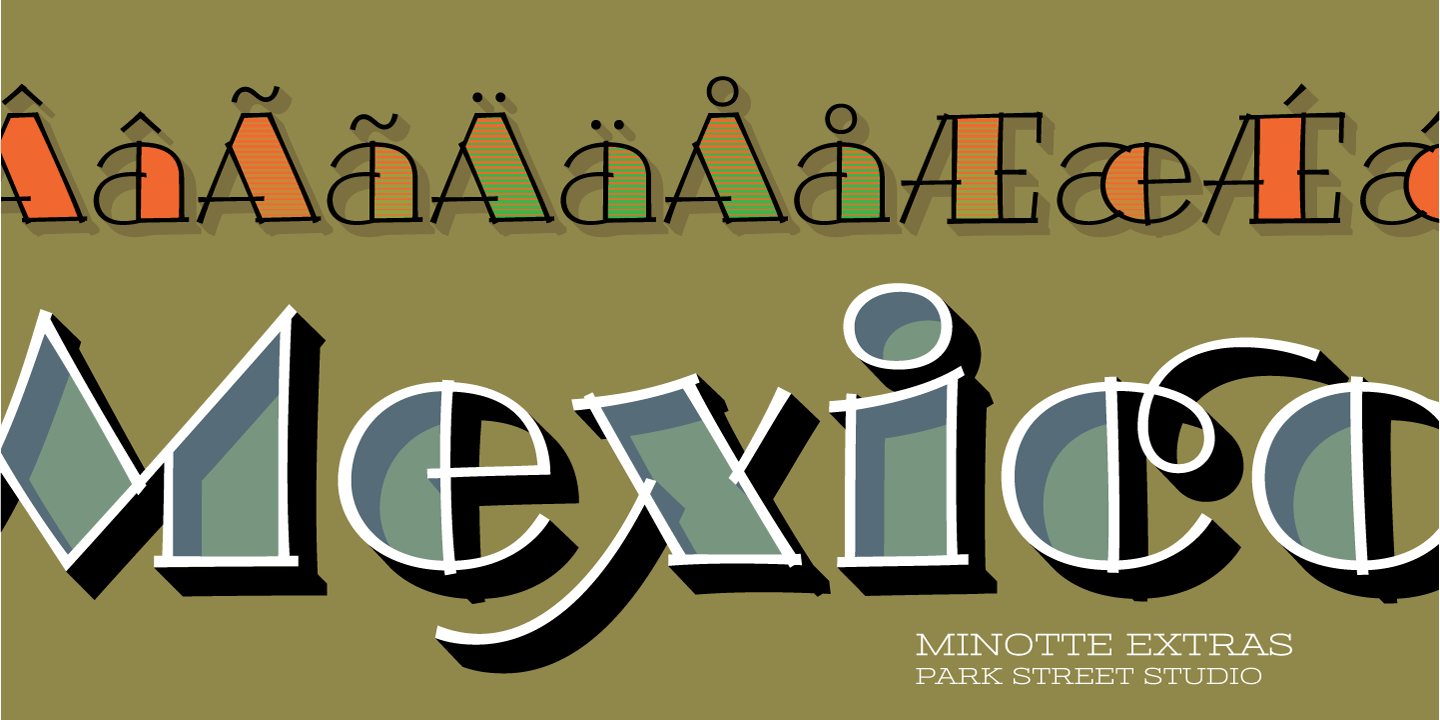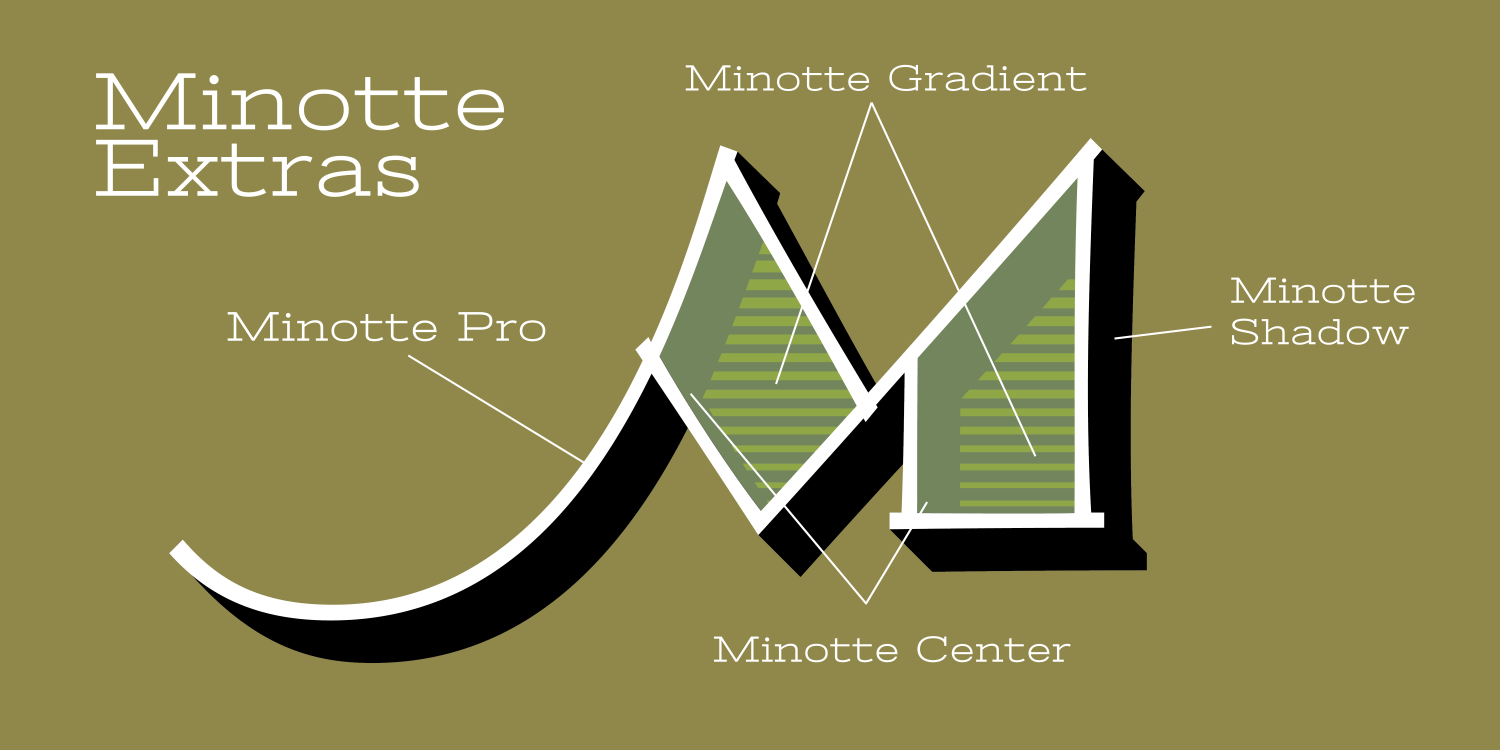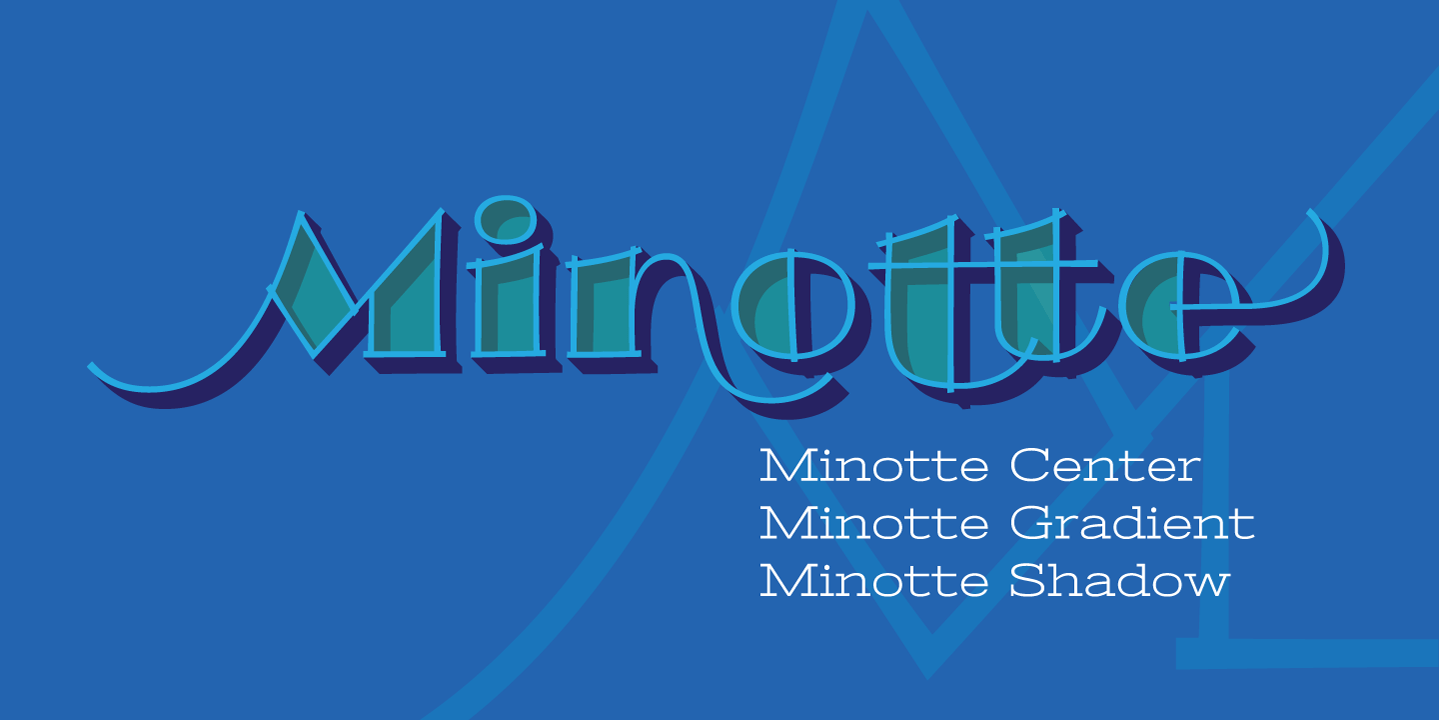
Minotte Extras Pro Pak
Buy NowMinotte Extras Pro Pak includes three fonts to enhance the look of Minotte Pro. Minotte Shadow is a drop shadow font that you lay over the Pro font. Minotte Gradient is a gradient screen that you lay over the Pro font, and Minotte Center is a solid version of the Gradient font that you can use with the Pro font and lay under the Gradient font. Combine them all, with different colors to make really cool graphics!
Minotte Extras Pro fonts contains these OpenType features: Contextual Swashes, Stylistic Alternates, Standard & Discretionary Ligatures, 6 Style Sets, Superiors & Inferiors, Fractions and Ornaments.